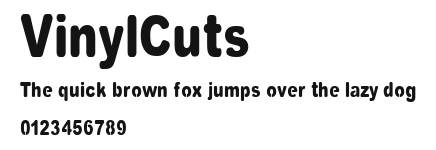
VinylCuts Preview
• Font Name: VinylCuts
• Designer: MEHMET ABACI
• Description: Folyo kesim için en ideal font
About VinylCuts.ttf
VinylCuts.ttf is a modern, elegant sans-serif font designed for ultimate readability and visual harmony. Perfect for branding, headlines, web design, and print materials.